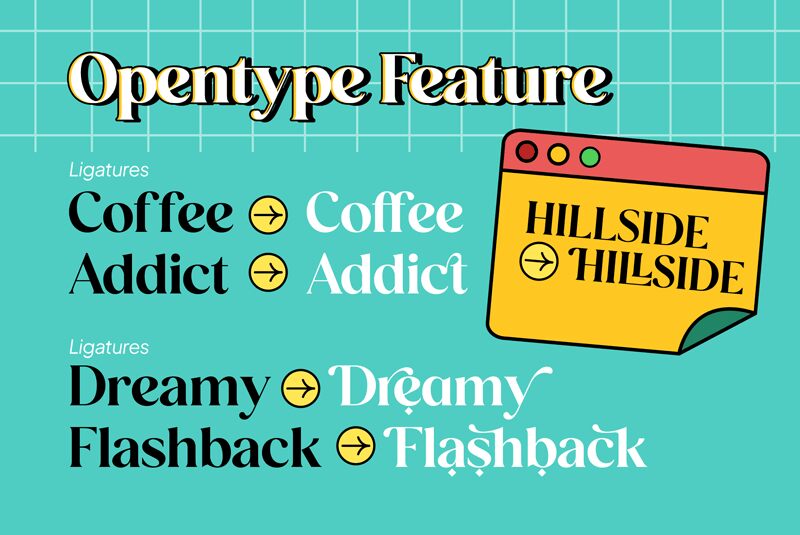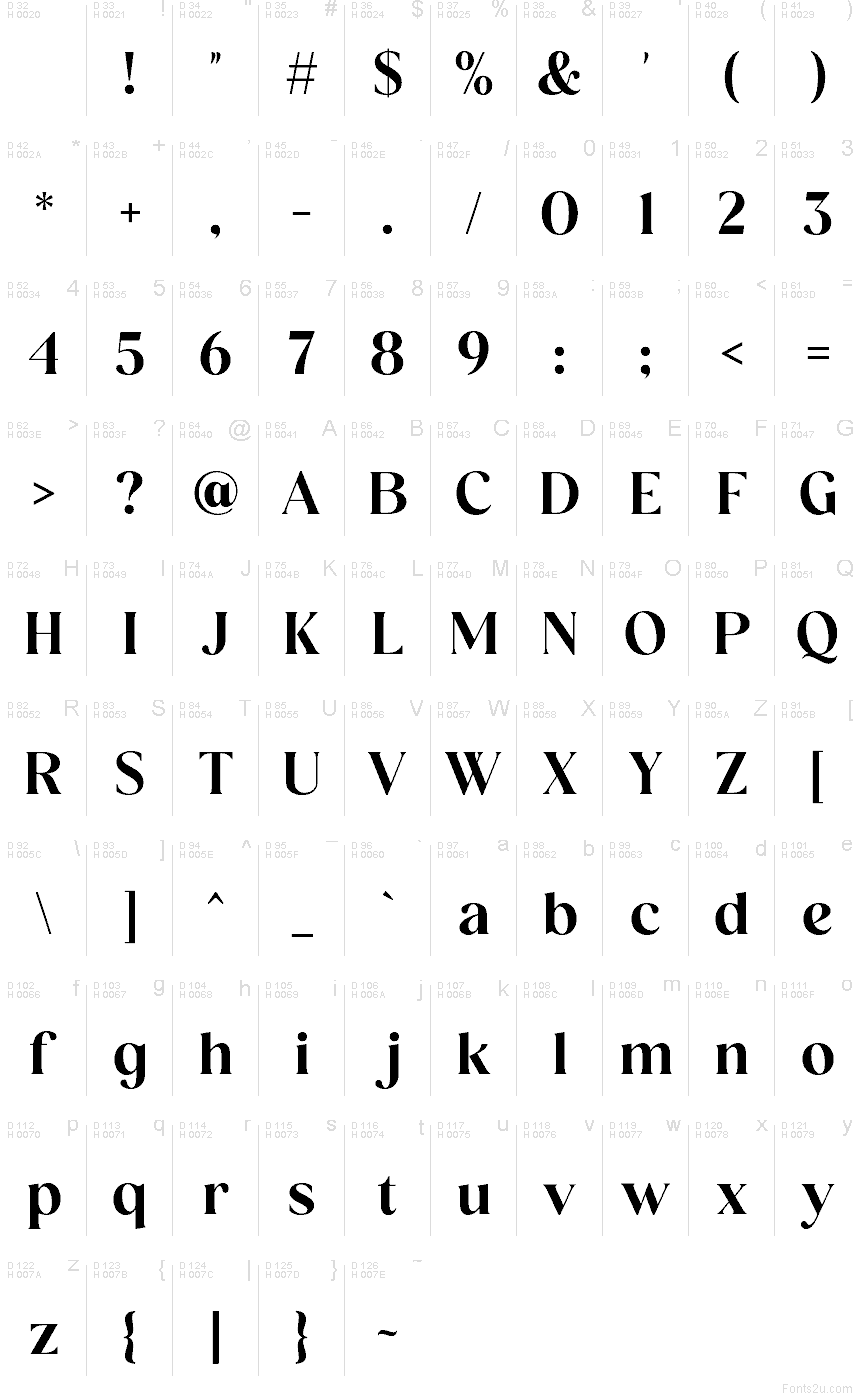
Cornella-Regular
Cornella font by VampStudio is a free serif typeface with a lush, inky weight and sharply carved curves that feel both dramatic and refined. Its broad shapes, tight rhythm, and confident verticals give headlines a sculpted presence, while the subtle flares and smooth bowls add a touch of softness so it never feels stiff or cold. The result is a bold, editorial voice that instantly commands attention on the page or screen.
Using Cornella, you can give book covers, magazine layouts, fashion branding, beauty packaging, posters, and hero banners a rich, sophisticated tone without extra ornament. This free font shines when set large, letting its thick strokes and crisp edges do the talking; pair it with a clean geometric sans for body copy to keep the overall system balanced and modern.